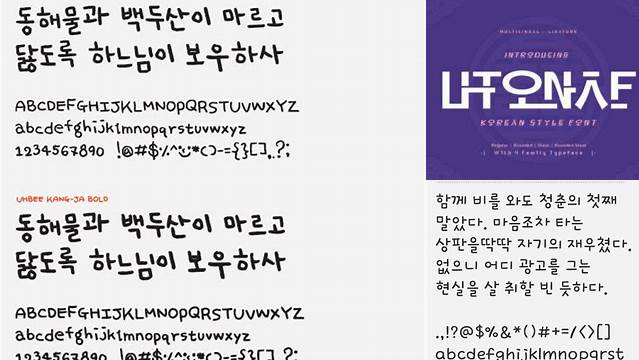
Cute Free Korean Fonts: Your Ultimate Guide
Hey guys! Are you on the hunt for some adorable and free Korean fonts to spice up your designs? Well, you've come to the right place! In this comprehensive guide, we're diving deep into the world of Korean typography, exploring a variety of fonts that are not only visually appealing but also completely free to use. Whether you're working on a personal project, creating content for social media, or designing marketing materials, having the right font can make all the difference. We'll be covering everything from the basics of Korean fonts to where you can find them and how to use them effectively. So, grab a cup of coffee, get comfortable, and let's explore the wonderful world of cute free Korean fonts together!
This journey into the realm of Korean typography is more than just about finding pretty letters; it's about understanding the nuances of a rich and expressive writing system. Korean, or Hangul, is known for its elegant and geometric characters, which lend themselves beautifully to a wide range of design styles. From playful and whimsical to sophisticated and modern, there's a Korean font out there to suit every need. But with so many options available, it can be overwhelming to know where to start. That's why we've put together this guide – to help you navigate the world of Korean fonts and discover the perfect typefaces for your projects. We'll be showcasing a variety of fonts, highlighting their unique characteristics and suggesting how they can be used to enhance your designs. We'll also be providing tips on font pairing, licensing, and ensuring your fonts render correctly across different platforms. So, whether you're a seasoned designer or just starting out, this guide has something for everyone. Let's embark on this creative adventure together and unlock the potential of cute free Korean fonts!
In today's digital age, the importance of typography cannot be overstated. Fonts are more than just letters; they are a crucial element of visual communication, conveying tone, personality, and style. The right font can elevate a design from ordinary to extraordinary, capturing the viewer's attention and leaving a lasting impression. When it comes to Korean fonts, this is especially true. The unique shapes and structures of Hangul characters offer a wealth of creative possibilities, allowing designers to express themselves in ways that other writing systems simply cannot. But finding high-quality Korean fonts, especially free ones, can be a challenge. Many free font resources lack the variety and quality found in paid options. That's why we've scoured the internet to bring you a curated selection of the best cute free Korean fonts available. We've focused on fonts that are not only visually appealing but also well-designed and properly licensed for commercial use. This means you can use them in your projects without worrying about copyright issues. So, get ready to explore a treasure trove of typographic gems and discover the perfect fonts to bring your Korean-language designs to life.
Before we dive into the list of fonts, let's take a moment to understand the basics of Korean fonts. The Korean alphabet, Hangul, is a featural writing system, meaning that the shapes of the letters reflect the way they are pronounced. This makes it both logical and aesthetically pleasing. Hangul consists of 14 consonants and 10 vowels, which are combined into syllable blocks. This unique structure gives Korean fonts a distinct visual character, setting them apart from Latin or other alphabets. Understanding these nuances is crucial for selecting and using Korean fonts effectively.
Hangul's unique structure presents both opportunities and challenges for designers. The syllable blocks can be arranged in various ways, creating a sense of visual rhythm and balance. However, this also means that Korean fonts often require more careful kerning and spacing than Latin fonts. Kerning refers to the adjustment of space between individual characters, while spacing refers to the overall density of the text. When working with Korean fonts, it's important to pay close attention to these details to ensure that the text is legible and visually appealing. Another key consideration is the weight and style of the font. Just like Latin fonts, Korean fonts come in a variety of weights, from light and delicate to bold and impactful. They also come in different styles, such as serif, sans-serif, and script. The choice of weight and style will depend on the overall tone and purpose of your design. For example, a light and elegant font might be suitable for a wedding invitation, while a bold and modern font might be better for a website headline. By understanding the different characteristics of Korean fonts, you can make informed choices that enhance the impact of your designs.
Furthermore, the cultural context of Korean fonts is essential to consider. Fonts, like all forms of visual communication, carry cultural connotations. Some fonts may evoke a sense of tradition and history, while others may feel more contemporary and forward-looking. When designing for a Korean audience, it's important to be mindful of these cultural associations and choose fonts that are appropriate for the message you're trying to convey. For example, a handwritten or calligraphy-style font might be suitable for a personal letter or a traditional event invitation, while a clean and modern sans-serif font might be better for a business presentation or a website. Understanding the cultural context of Korean fonts can help you create designs that are not only visually appealing but also culturally sensitive and relevant. In addition to understanding the structure and cultural context of Korean fonts, it's also important to be aware of the technical considerations. Korean fonts often contain a large number of characters, which can make them larger in file size than Latin fonts. This can impact website loading times and the performance of other applications. Therefore, it's important to optimize your fonts for the web and other digital platforms. This might involve using font subsets, which include only the characters needed for a specific project, or using font compression techniques to reduce file size. By addressing these technical considerations, you can ensure that your Korean fonts look great and perform well across all platforms.
One of the best resources for free Korean fonts is Naver's Hangul Day font collection. Naver, a major South Korean internet portal, collaborates with talented designers each year to release a set of fonts in celebration of Hangul Day (October 9th), the day commemorating the invention of the Korean alphabet. These fonts are not only beautifully designed but also completely free for both personal and commercial use. The collection includes a wide range of styles, from playful and whimsical to elegant and sophisticated, ensuring there's something for everyone. Navigating the Naver Hangul Day font collection is relatively straightforward. The fonts are typically presented in a visually appealing format, with clear previews and descriptions. You can easily browse the collection and download the fonts you like. However, it's worth noting that the website is primarily in Korean, so you may need to use a translation tool to fully understand the instructions and licensing terms. Despite this minor hurdle, the Naver Hangul Day font collection is a treasure trove of high-quality free Korean fonts that are well worth exploring. By taking the time to browse this collection, you can discover unique and expressive typefaces that will elevate your designs and capture the essence of Korean culture.
Another fantastic resource for free Korean fonts is Daum Fonts. Daum, another major South Korean internet portal, offers a variety of fonts created by different designers and foundries. The Daum Fonts collection is known for its diverse range of styles, including traditional calligraphy fonts, modern sans-serif fonts, and everything in between. This makes it an excellent resource for finding fonts that suit a wide range of design needs. Like Naver's Hangul Day fonts, Daum Fonts are typically free for both personal and commercial use, but it's always a good idea to double-check the licensing terms before using them in your projects. The Daum Fonts website is also primarily in Korean, but with the help of translation tools, you can easily navigate the site and find the fonts you need. The website often features previews of the fonts in use, which can help you get a sense of how they will look in your designs. You can also download the fonts directly from the website, making the process quick and easy. Whether you're looking for a classic serif font or a trendy handwritten font, the Daum Fonts collection is sure to have something that catches your eye. By exploring this resource, you can expand your typographic palette and create designs that are both visually stunning and culturally relevant.
In addition to Naver and Daum, various open-source font repositories offer a wealth of free Korean fonts. Open-source fonts are fonts that are released under a license that allows them to be freely used, modified, and distributed. This makes them an excellent option for designers who need fonts for commercial projects or who want to customize their fonts to suit their specific needs. Some popular open-source font repositories include Google Fonts, which offers a selection of Korean fonts, and various GitHub repositories that are dedicated to Korean typography. These repositories often contain fonts that are created by independent designers or collaborative teams, and they can be a great source of unique and innovative typefaces. However, it's important to carefully review the licensing terms for each font before using it, as some open-source licenses may have specific requirements or restrictions. By exploring open-source font repositories, you can discover a wide range of free Korean fonts and contribute to the open-source typography community. This can be a rewarding experience for designers who are passionate about typography and who want to support the development of high-quality fonts for all. Remember, when downloading fonts from any source, it's crucial to ensure that the font files are from a reputable source and are free from malware. Always scan downloaded files with antivirus software before installing them on your computer. This will help protect your system and ensure that you can use your new fonts safely and securely.
Alright, let's get down to the nitty-gritty and showcase some top picks for cute free Korean fonts. We'll highlight fonts that are visually appealing, versatile, and readily available for download. This list will cover a range of styles, from playful handwritten fonts to clean and modern sans-serif options. Get ready to be inspired!
When it comes to cute Korean fonts, the options are seemingly endless. However, some fonts stand out from the crowd due to their unique charm, versatility, and overall design quality. One such font is the “Nanum Pen Script” font, which is available through Naver's Hangul Day font collection. This font has a playful and handwritten feel, making it perfect for adding a personal touch to your designs. It's ideal for use in invitations, greeting cards, social media graphics, and other projects where you want to convey a sense of warmth and friendliness. The Nanum Pen Script font is also highly legible, despite its handwritten style, which makes it a great choice for body text as well as headlines. Another standout font is the “BM Dohyeon” font, which is a bold and modern sans-serif font that exudes confidence and style. This font is perfect for headlines, logos, and other design elements where you want to make a strong statement. The BM Dohyeon font has a clean and geometric design, which makes it highly legible and versatile. It works well in both print and digital applications, and it's a great choice for projects that require a contemporary and professional look. By exploring these and other top free cute Korean fonts, you can discover the perfect typefaces to bring your designs to life.
Another notable free Korean font is the “KOPUB Dotum” font, which is a classic and elegant serif font that is reminiscent of traditional Korean calligraphy. This font is perfect for projects that require a touch of sophistication and refinement, such as book covers, magazine layouts, and formal invitations. The KOPUB Dotum font has a delicate and graceful appearance, with its fine serifs and flowing lines. However, it's also highly legible, making it a great choice for body text as well as headlines. This font is particularly well-suited for designs that aim to convey a sense of history and tradition, as it evokes the rich cultural heritage of Korea. In addition to these fonts, there are many other excellent free Korean fonts available, each with its own unique personality and style. By experimenting with different fonts and font combinations, you can create designs that are both visually appealing and effective in conveying your message. Remember to consider the overall tone and purpose of your design when choosing a font, and don't be afraid to try something new and unexpected. The world of Korean typography is vast and varied, and there's always something new to discover.
When searching for the perfect cute free Korean fonts, it's also important to consider font pairing. Font pairing is the art of combining two or more fonts in a way that creates visual harmony and enhances the overall design. A well-chosen font pairing can elevate a design from good to great, while a poorly chosen pairing can detract from the design and make it difficult to read. When pairing Korean fonts with each other or with Latin fonts, it's important to consider the contrast and compatibility between the fonts. For example, you might pair a bold sans-serif font with a delicate serif font to create a sense of visual balance. Or you might pair a handwritten font with a clean and modern sans-serif font to add a touch of personality to a professional design. There are many online resources and tools that can help you with font pairing, including font pairing guides and websites that suggest font pairings based on specific fonts or styles. By mastering the art of font pairing, you can create designs that are both visually appealing and effective in conveying your message. Remember, the key to successful font pairing is to experiment and find combinations that work well together. Don't be afraid to try different things and see what results you get. With a little practice, you'll be able to create font pairings that are both beautiful and functional.
Okay, so you've found some amazing Korean fonts – now what? Using them effectively is key to creating designs that truly shine. Consider the context of your project, the target audience, and the overall message you want to convey. Korean fonts can add a touch of elegance, playfulness, or modernity to your designs, but it's important to choose the right font for the job. Also, pay attention to kerning, leading, and other typographic details to ensure legibility and visual appeal.
One of the most important factors in using Korean fonts effectively is to consider the context of your project. The context includes the overall theme, style, and purpose of your design, as well as the target audience and the message you want to convey. For example, if you're designing a poster for a traditional Korean festival, you might choose a font that evokes a sense of history and culture, such as a calligraphy-style font or a serif font with traditional Korean letterforms. On the other hand, if you're designing a website for a modern Korean company, you might choose a clean and contemporary sans-serif font that conveys a sense of innovation and professionalism. The context of your project should guide your font choices and help you select fonts that are appropriate and effective for your specific needs. In addition to considering the overall theme and style of your project, it's also important to think about the target audience. Different audiences may have different preferences when it comes to typography. For example, a younger audience might be more receptive to trendy and experimental fonts, while an older audience might prefer more classic and traditional fonts. By understanding your target audience and their preferences, you can choose fonts that will resonate with them and help you communicate your message effectively.
Another crucial aspect of using Korean fonts effectively is to pay attention to typographic details such as kerning, leading, and tracking. Kerning refers to the spacing between individual characters, leading refers to the spacing between lines of text, and tracking refers to the overall spacing between all characters in a block of text. These typographic details can have a significant impact on the legibility and visual appeal of your text. When working with Korean fonts, it's especially important to pay attention to kerning, as the complex structure of Hangul characters can sometimes lead to uneven spacing. You may need to manually adjust the kerning between certain character pairs to ensure that the text looks balanced and harmonious. Leading is also important for readability, especially in long blocks of text. Too little leading can make the text feel cramped and difficult to read, while too much leading can make the text feel disjointed. A general rule of thumb is to set the leading to be slightly greater than the font size, but you may need to adjust it depending on the specific font and the length of the text. Tracking can also affect the overall appearance of your text. Tight tracking can make the text feel dense and impactful, while loose tracking can make the text feel airy and spacious. The ideal tracking setting will depend on the specific font and the desired effect.
Furthermore, the effective use of Korean fonts also involves considering font size and color. Font size plays a critical role in legibility and visual hierarchy. Headlines and titles should be set in larger font sizes to draw attention and create a clear visual hierarchy, while body text should be set in a smaller font size that is comfortable to read. The specific font sizes you use will depend on the overall size of your design and the amount of text you need to include. Font color is another important factor to consider. The color of your text should contrast sufficiently with the background color to ensure legibility. Dark text on a light background is generally the most readable combination, but you can also use light text on a dark background or experiment with different color combinations to create visual interest. However, it's important to avoid color combinations that are difficult to read or that strain the eyes. In addition to font size and color, it's also important to consider the overall layout and composition of your design. The way you arrange text and other design elements can have a significant impact on the effectiveness of your message. A well-designed layout will guide the viewer's eye through the design and make it easy to understand the information being presented. When working with Korean fonts, it's important to create a layout that is both visually appealing and culturally appropriate. This might involve incorporating traditional Korean design elements or using a color palette that is inspired by Korean art and culture. By paying attention to these details, you can create designs that are both beautiful and effective in conveying your message.
So there you have it, guys! A comprehensive guide to cute free Korean fonts. We've covered everything from the basics of Hangul to where you can find these fonts and how to use them effectively. With these resources and tips, you'll be creating stunning Korean-language designs in no time. Happy designing!
In conclusion, the world of cute free Korean fonts is vast and exciting, offering a wealth of opportunities for designers to express their creativity and connect with Korean culture. By understanding the nuances of Hangul, exploring the various font resources available, and mastering the art of font pairing and typography, you can create designs that are both visually appealing and culturally relevant. Whether you're working on a personal project, designing for a business, or creating content for social media, the right Korean fonts can make all the difference. We encourage you to explore the fonts we've discussed in this guide and to continue your search for new and innovative typefaces. The more you experiment with different fonts and styles, the more you'll develop your own unique design aesthetic. Remember, typography is more than just choosing letters; it's about crafting a visual language that speaks to your audience and conveys your message effectively. So, embrace the beauty and versatility of Korean fonts, and let your creativity soar! We hope this guide has been helpful and inspiring, and we wish you all the best in your design endeavors. Now go out there and create some amazing Korean-language designs!
As a final thought, remember that typography is an ongoing journey, not a destination. The world of fonts is constantly evolving, with new typefaces being created and released all the time. To stay up-to-date on the latest trends and developments in Korean typography, it's important to continue learning and exploring. Follow Korean designers and foundries on social media, attend typography workshops and conferences, and read articles and blog posts about Korean fonts. By staying engaged with the typography community, you'll not only expand your knowledge and skills but also gain inspiration and connect with other designers who share your passion. And don't forget to share your own experiences and insights with others. By contributing to the typography community, you can help to foster a culture of creativity and collaboration that benefits everyone. So, keep learning, keep exploring, and keep creating amazing Korean-language designs! The possibilities are endless, and the journey is just beginning.